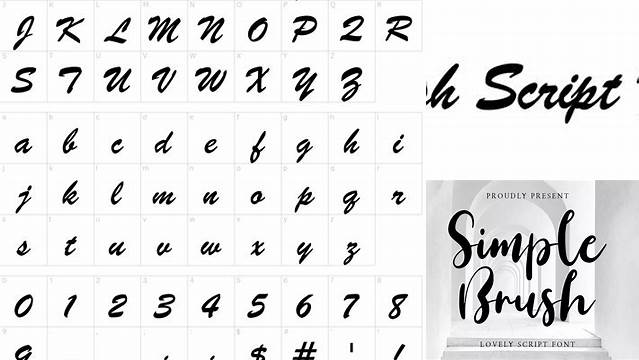
Brush Script OPTI: Free Font Guide & Download
Hey guys! Ever stumbled upon a font that just screams elegance and vintage charm? That’s Brush Script OPTI for you! This font has a classic, handwritten feel that can add a touch of sophistication to any design project. In this guide, we’ll dive deep into everything you need to know about Brush Script OPTI, from its history and characteristics to how you can use it in your own projects. We're also going to cover where you can snag it for free and some awesome alternatives if you're looking for something a little different. So, buckle up and let's get started!
What is Brush Script OPTI?
Brush Script OPTI is a beautifully flowing typeface that mimics the look of traditional brush calligraphy. It's known for its elegant loops, connecting strokes, and overall graceful appearance. This makes it a fantastic choice for projects that need a personal or handcrafted touch. Whether you're designing wedding invitations, creating logos, or adding flair to your website, this font can really make a difference. We'll delve deeper into its uses and characteristics, but first, let's understand its origins.
History and Origin of Brush Script OPTI
Understanding the history of Brush Script OPTI can help you appreciate its unique charm. This font is part of the larger Brush Script family, which has roots in the mid-20th century. It was designed to emulate the fluid strokes of brush lettering, a popular art form at the time. Brush Script OPTI, specifically, is a digital adaptation that maintains the original’s calligraphic appeal while being compatible with modern design software. It’s a fantastic example of how classic designs can be preserved and adapted for contemporary use. The story behind its creation is just as captivating as the font itself, so let’s get into the specifics.
Key Characteristics of Brush Script OPTI
What makes Brush Script OPTI stand out from the crowd? It's all in the details! This font boasts several key characteristics that contribute to its unique appeal. Think flowing lines, elegant curves, and a distinctly handwritten style. The connecting strokes between letters give it a natural, seamless look, while the variations in thickness add depth and visual interest. These characteristics make it ideal for projects where you want to convey a sense of sophistication and personal touch. Understanding these details is crucial for knowing when and where to use it effectively, which we’ll explore next.
Best Uses for Brush Script OPTI
Now, where does Brush Script OPTI truly shine? This font is incredibly versatile, but it's particularly well-suited for certain types of projects. Imagine using it for wedding invitations, where its elegance can set the tone for a romantic celebration. Or picture it on a logo, where its unique style can help a brand stand out. It’s also great for headings, quotes, and anything else that needs a touch of class. However, it's important to use it sparingly; too much and it can lose its impact. So, let's look at some specific scenarios where this font can really make a splash.
Brush Script OPTI vs. Other Script Fonts
Brush Script OPTI is amazing, but how does it stack up against other script fonts? There are tons of script fonts out there, each with its own unique vibe. Some are more formal, while others are more playful. Compared to some fancier scripts, Brush Script OPTI strikes a nice balance, offering elegance without being overly ornate. Understanding these differences can help you choose the perfect font for your specific needs. So, let's compare it to a few popular alternatives and see where it really shines.
Alternatives to Brush Script OPTI
Looking for something similar but not quite the same? No problem! There are plenty of fantastic alternatives to Brush Script OPTI that you might love. Maybe you want something a bit bolder, or perhaps you're after a more modern feel. We’ll explore a few great options, from similar calligraphic styles to more contemporary scripts. This way, you can find the perfect font to match your project's unique personality. Variety is the spice of life, and the same goes for fonts!
Using Brush Script OPTI in Graphic Design
When it comes to graphic design, Brush Script OPTI is a real workhorse. Its elegant style makes it perfect for a wide range of projects, from logos and branding to invitations and posters. The key is to use it strategically. Pair it with a simple sans-serif font for a balanced look, and don't overuse it – a little goes a long way. Let's explore some specific examples of how you can incorporate this font into your designs to make them truly shine.
Brush Script OPTI and the Evolution of Font Design
The world of font design is constantly evolving, with new styles and technologies emerging all the time. Brush Script OPTI is a great example of how classic designs can be adapted for modern use. We'll explore the evolution of font design and discuss how Brush Script OPTI fits into this broader context. It's a fascinating journey through the history of visual communication!